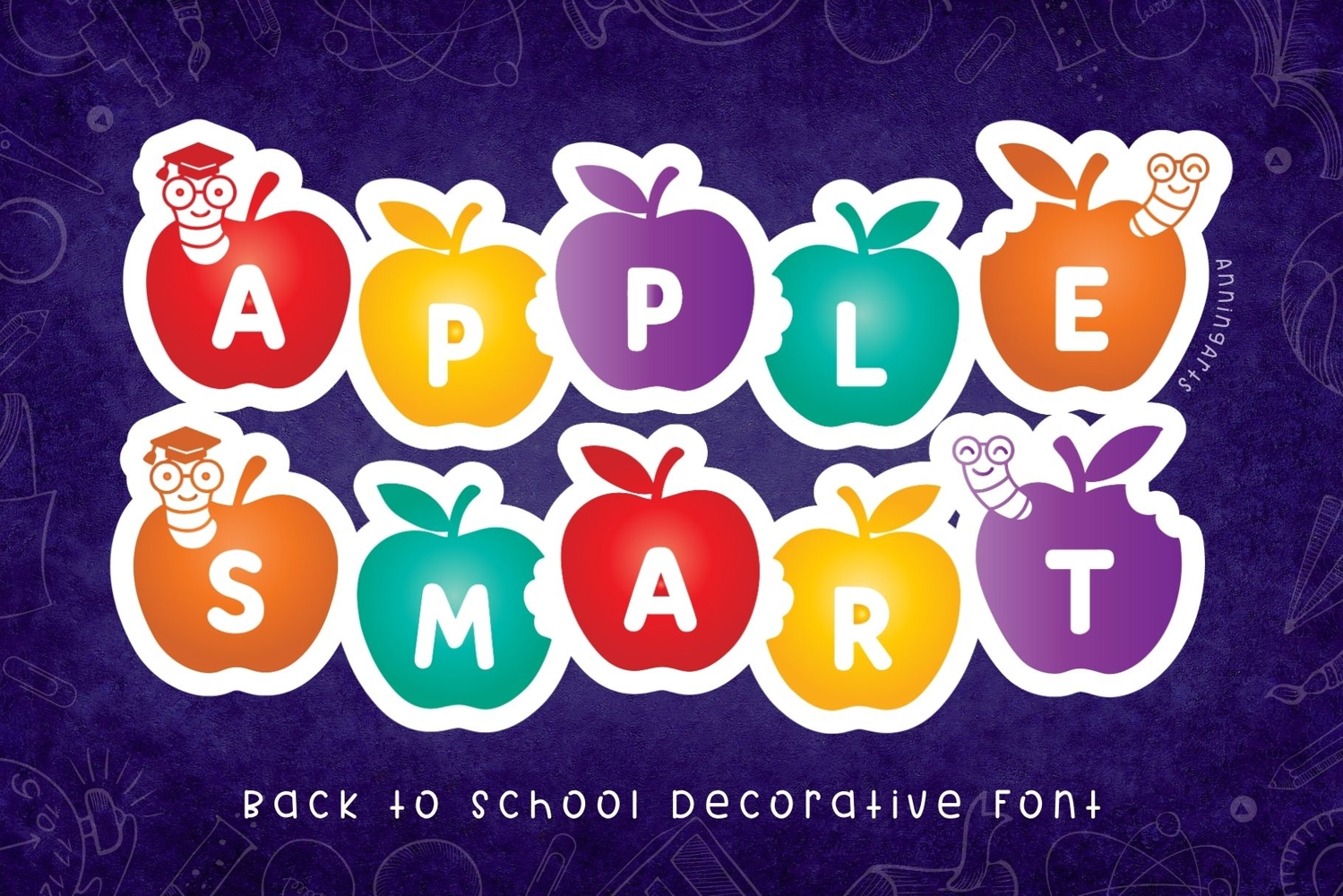
Apple Smart - Decorative Font
Apple Smart is a cute back-to-school decorative font featuring apple-shaped letters with adorable worms, perfect for teachers, classroom decor, kids’ crafts, Cricut projects, printable worksheets, and educational designs. Ideal for Back to School banners, T-shirts, mugs, and stickers.
Bring fun and creativity to your classroom projects or make an awesome gift for smart kids and teachers!